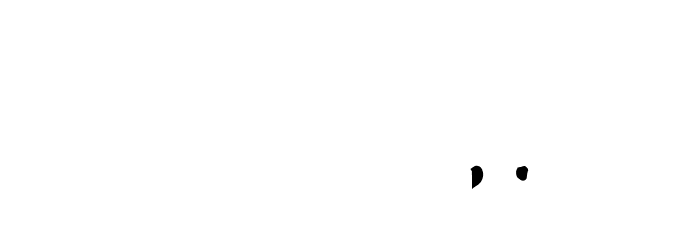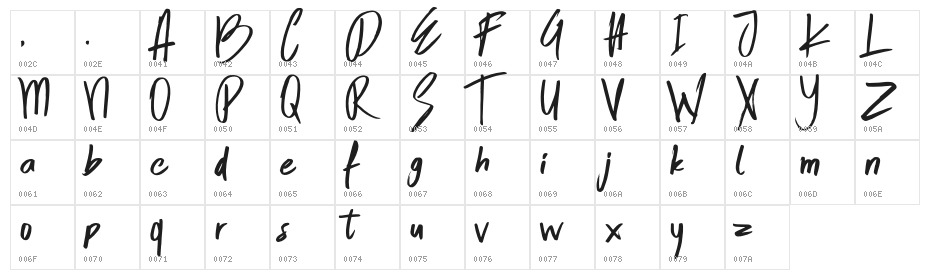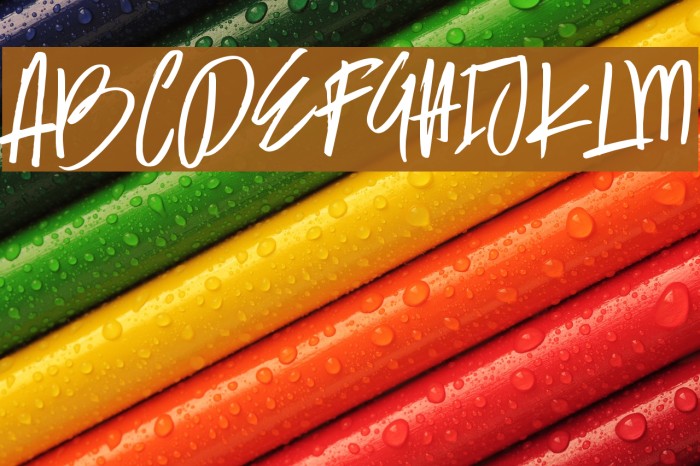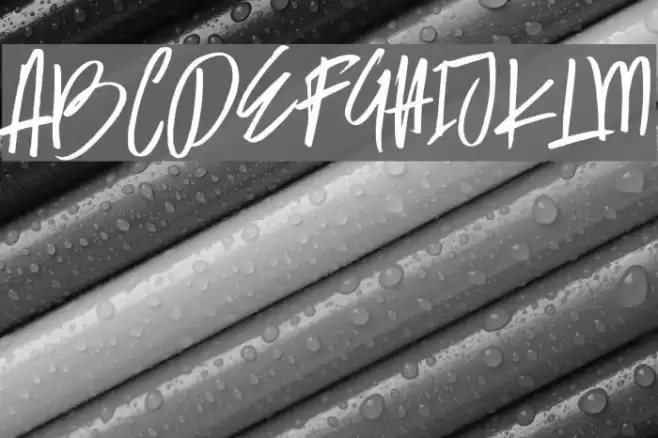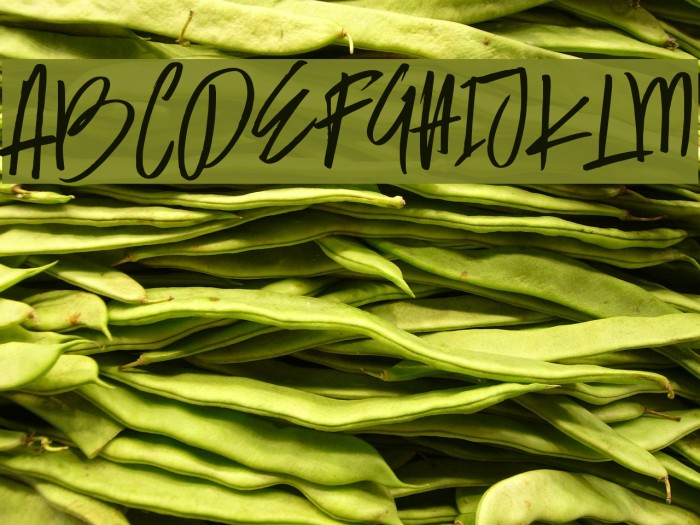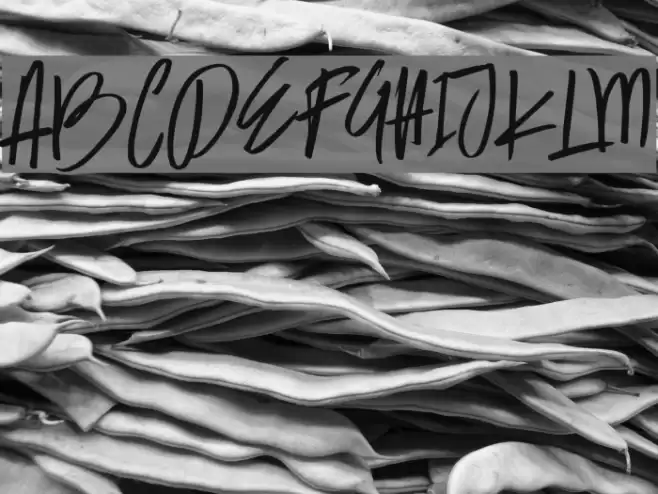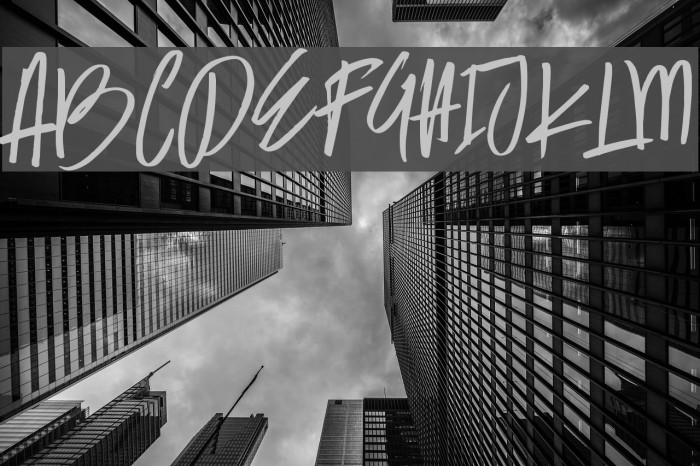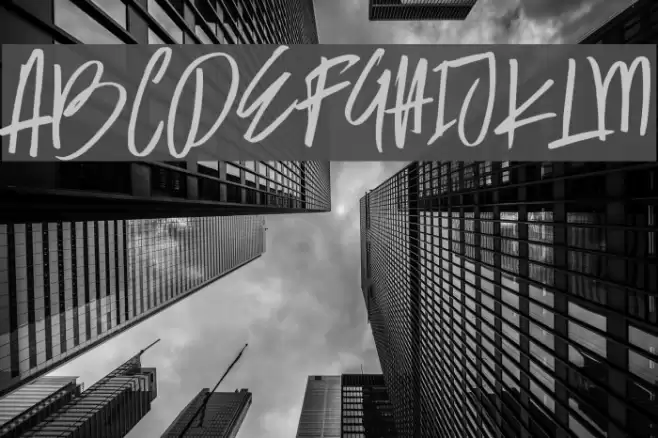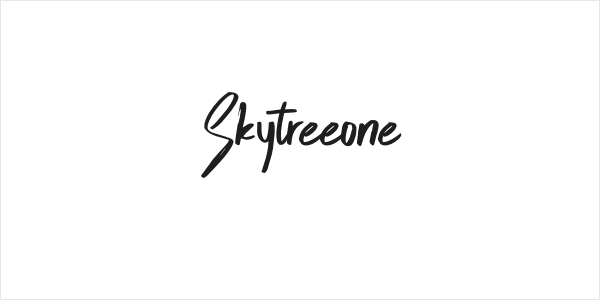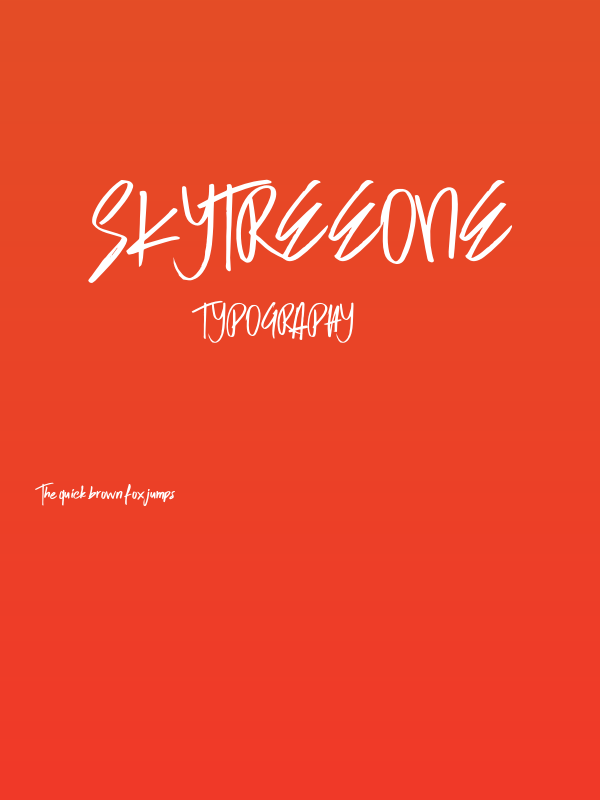
Skytreeone Font
Skytreeone Description
This font features a dynamic and expressive handwritten style, characterized by its fluid and energetic strokes. The uppercase letters exhibit a playful and slightly chaotic appearance, with varying line thicknesses that add to its lively personality. The lowercase letters maintain a consistent flow, with some characters extending below the baseline, enhancing its casual and informal look. The font's overall appearance is bold and impactful, making it suitable for projects that require a personal and artistic touch. The spacing between characters is relatively tight, contributing to its compact and cohesive feel.